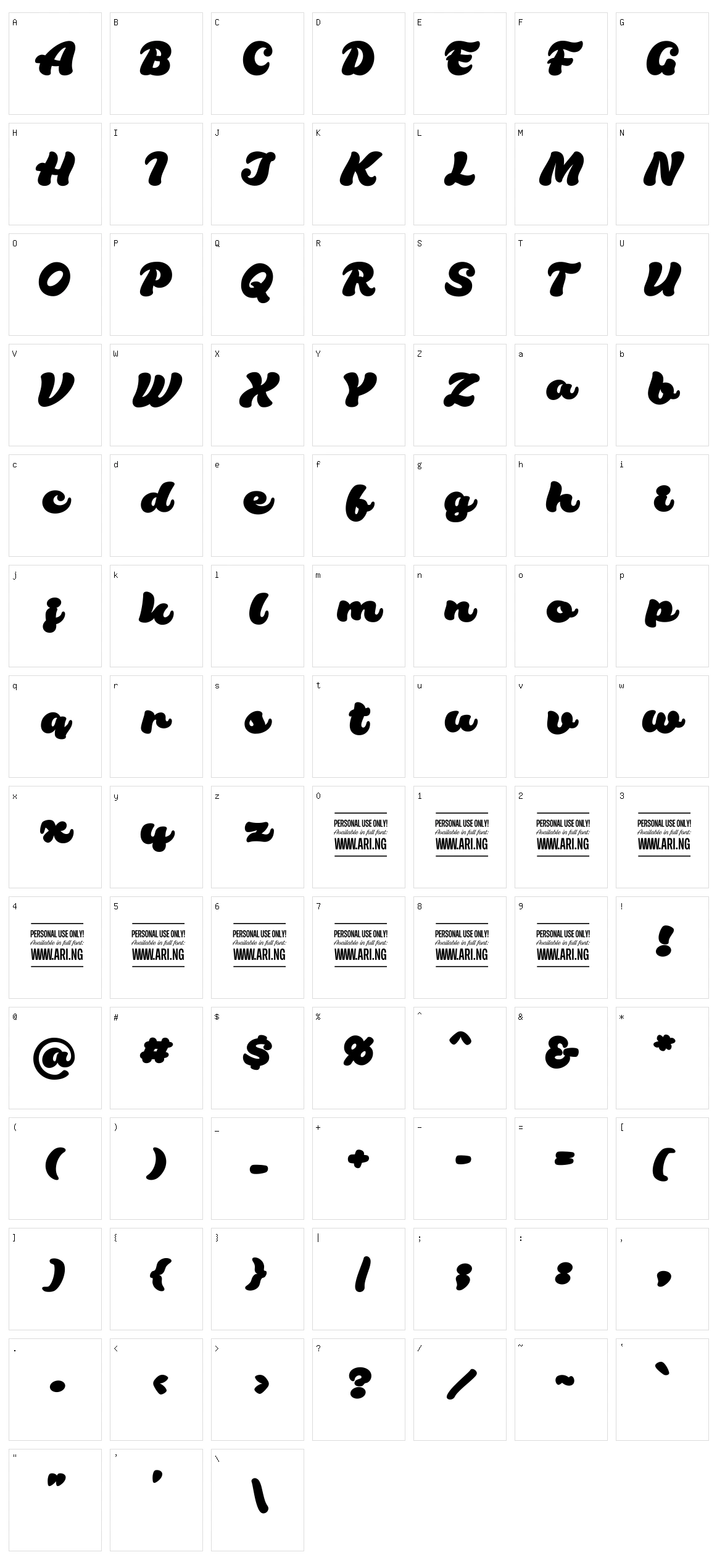
Habanero is a hot, bold and happy typeface.
The font was created by Måns Grebäck in 2016, and it contains contextual
alternates and ligatures to make your type stand out.